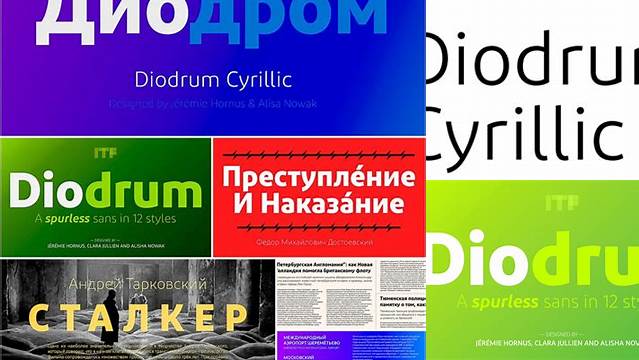
Hey guys! Are you on the hunt for a fresh, modern font that supports Cyrillic characters? Look no further! Today, we're diving deep into the Diodrum Cyrillic font family, exploring its features, benefits, and where you can snag it for free. Let’s get started!
What is Diodrum Cyrillic Font Family?
The Diodrum Cyrillic font family is a versatile typeface designed with a contemporary aesthetic. It’s perfect for a wide range of applications, from branding and advertising to editorial design and web content. The font family includes various weights and styles, providing flexibility for different design needs. But what sets it apart is its robust support for Cyrillic characters, making it an excellent choice for projects targeting Russian, Ukrainian, and other Slavic-speaking audiences. The clean lines and balanced letterforms ensure readability and visual appeal, whether used in headlines or body text. Designers often praise its adaptability, noting how seamlessly it integrates into both print and digital mediums. Choosing the right font can drastically improve the overall look and feel of your project, and Diodrum Cyrillic is designed to make that choice an easy one. Its modern design philosophy ensures it stays relevant and effective in today's fast-paced design world. With its comprehensive character set and multiple weights, the font family offers unparalleled versatility, allowing you to create visually stunning and impactful designs that resonate with your target audience. Whether you're working on a corporate identity, a website, or a marketing campaign, Diodrum Cyrillic can help you achieve a polished and professional look.
Benefits of Using Diodrum Cyrillic
There are numerous benefits to using the Diodrum Cyrillic font family. First and foremost, its comprehensive Cyrillic support ensures that your designs are accessible and legible to a wide audience. This is crucial if you're targeting markets where Cyrillic scripts are prevalent. Beyond that, the font's modern and clean design makes it suitable for a variety of projects. Whether you're working on a sleek, minimalist website or a bold, eye-catching poster, Diodrum Cyrillic can adapt to your needs. The various weights and styles within the family also offer flexibility, allowing you to create visual hierarchy and add emphasis where needed. Another significant advantage is its readability. The letterforms are carefully crafted to ensure clarity, even at small sizes, making it ideal for body text. Plus, the availability of free downloads makes it an accessible option for designers on a budget. By using Diodrum Cyrillic font family, you're not just choosing a font; you're investing in a tool that can enhance the overall quality and impact of your design work. Its versatility, readability, and Cyrillic support make it an invaluable asset for any designer working with multilingual projects or targeting specific cultural groups. The ability to access it for free only adds to its appeal, making it a cost-effective solution for both personal and commercial projects. This font family is designed to meet the diverse needs of designers, ensuring that your creative visions are translated into reality with clarity and style.
Diodrum Cyrillic Font Family: A Detailed Overview
Let's get into a more detailed overview of the Diodrum Cyrillic font family. This includes looking at the specific weights and styles available, the character set, and its overall design philosophy. Understanding these aspects can help you make the most of the font in your projects. The font family typically includes weights ranging from thin to black, providing a wide range of options for different design needs. Each weight has been carefully crafted to ensure consistency and readability. The character set includes not only standard Latin characters but also a comprehensive set of Cyrillic glyphs, making it suitable for multilingual projects. The design philosophy behind Diodrum Cyrillic is rooted in modernism, emphasizing clean lines, balanced proportions, and a timeless aesthetic. This makes it versatile enough to be used in a variety of contexts, from corporate branding to editorial design. Additionally, the font has been optimized for both print and digital use, ensuring that it looks great on screens of all sizes. By understanding the nuances of the font's design and capabilities, you can leverage its strengths to create visually compelling and effective designs. The attention to detail in the creation of Diodrum Cyrillic reflects a commitment to quality and usability, making it a valuable asset for any designer. Its comprehensive character set and thoughtfully designed weights allow for a high degree of creative freedom, empowering you to bring your unique visions to life. This detailed overview aims to provide you with a deeper understanding of what makes Diodrum Cyrillic a standout font choice.
Using Diodrum Cyrillic for Web Design
Diodrum Cyrillic for Print Design
For print design projects, the Diodrum Cyrillic font family is equally valuable. Its clear and well-defined letterforms ensure readability, even at small sizes, making it ideal for brochures, posters, and other printed materials. When using it in print, be sure to choose the appropriate font weights and styles for your specific project. For headlines, you might opt for a bold weight to grab attention, while for body text, a lighter weight will ensure readability. Also, pay attention to kerning and leading to optimize the visual appeal of your text. Before sending your design to print, always proofread carefully to catch any errors. It's also a good idea to print a sample to check how the font renders on paper. By following these guidelines, you can effectively use Diodrum Cyrillic to create visually stunning and professional-looking print designs. Its versatility and readability make it an excellent choice for a wide range of applications. Whether you're designing a corporate brochure or a marketing poster, Diodrum Cyrillic can help you achieve a polished and impactful result. This font is designed to meet the demands of print design, ensuring that your printed materials communicate your message effectively and leave a lasting impression on your audience. By paying attention to the details and following best practices, you can leverage the strengths of Diodrum Cyrillic to create exceptional print designs.
Pairing Diodrum Cyrillic with Other Fonts
Choosing the right font pairing can significantly enhance the overall aesthetic of your design. The Diodrum Cyrillic font family pairs well with a variety of other fonts, depending on the specific look you're trying to achieve. For a classic and elegant look, consider pairing it with a serif font like Times New Roman or Georgia. For a more modern and minimalist look, you might pair it with a sans-serif font like Helvetica or Arial. When choosing a font pairing, pay attention to the contrast between the two fonts. A high contrast pairing can create visual interest, while a low contrast pairing can create a more harmonious look. It's also important to consider the readability of the font pairing. Make sure that both fonts are easy to read, especially when used in body text. Experiment with different font pairings to find the combination that works best for your specific project. By carefully selecting the right font pairing, you can elevate the typography of your design and create a more visually appealing and effective result. The versatility of Diodrum Cyrillic makes it easy to pair with a wide range of other fonts, giving you plenty of options to explore. Whether you're designing a website or a printed brochure, the right font pairing can make all the difference in creating a polished and professional look.
Diodrum Cyrillic: A Font for Every Occasion
In conclusion, the Diodrum Cyrillic font family is a versatile and valuable resource for designers. Its modern aesthetic, comprehensive Cyrillic support, and free availability make it a font that can be used for every occasion. Whether you're designing a website, a brochure, a logo, or a presentation, Diodrum Cyrillic can help you create visually appealing and effective designs. By following the tips and guidelines in this article, you can use Diodrum Cyrillic effectively and unlock its full potential. Remember, typography is an essential element of design. By choosing the right font and using it thoughtfully, you can elevate your designs and communicate your message clearly and effectively. So go ahead and download Diodrum Cyrillic and start creating amazing designs today! Happy designing!